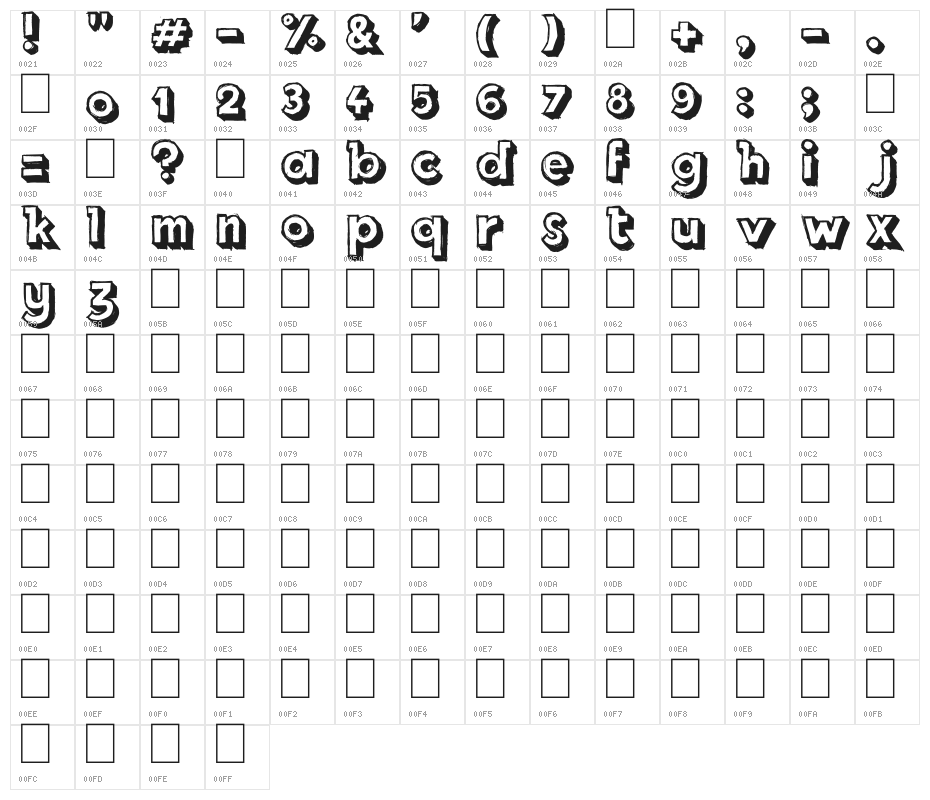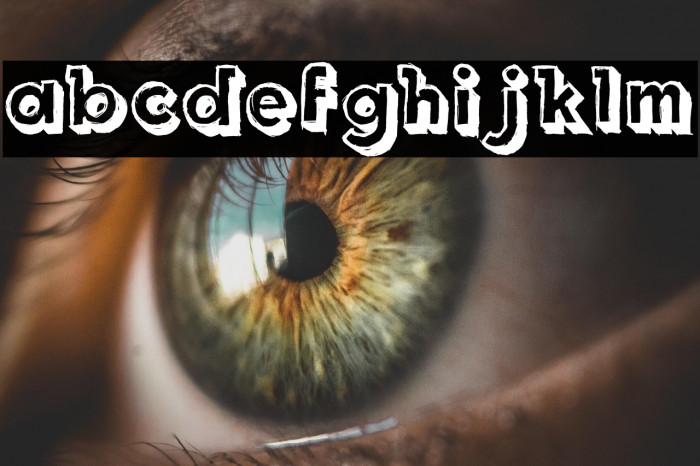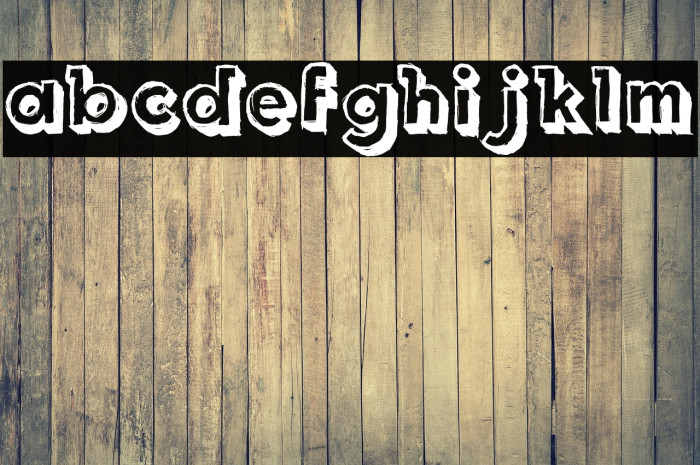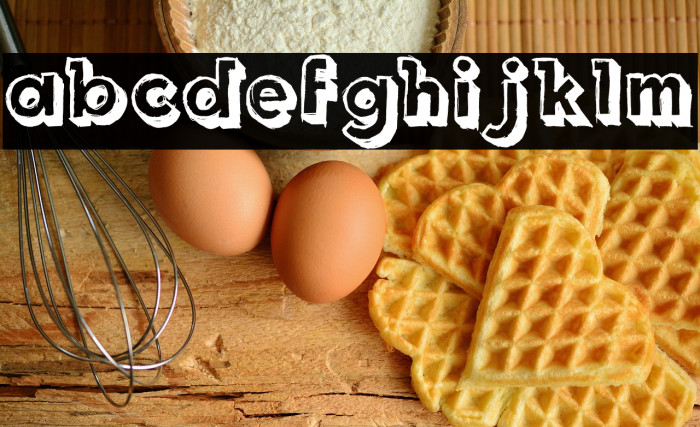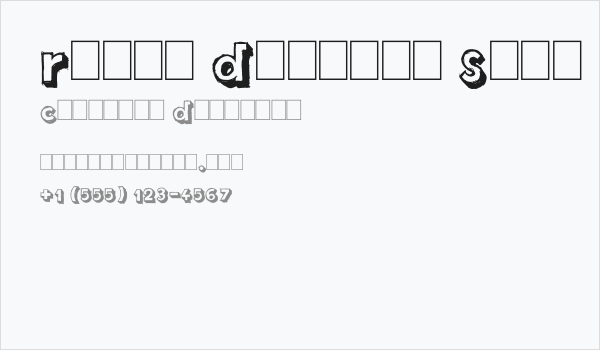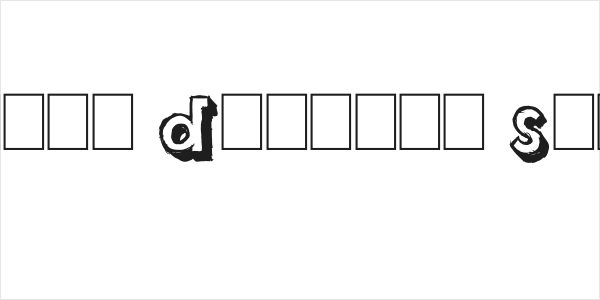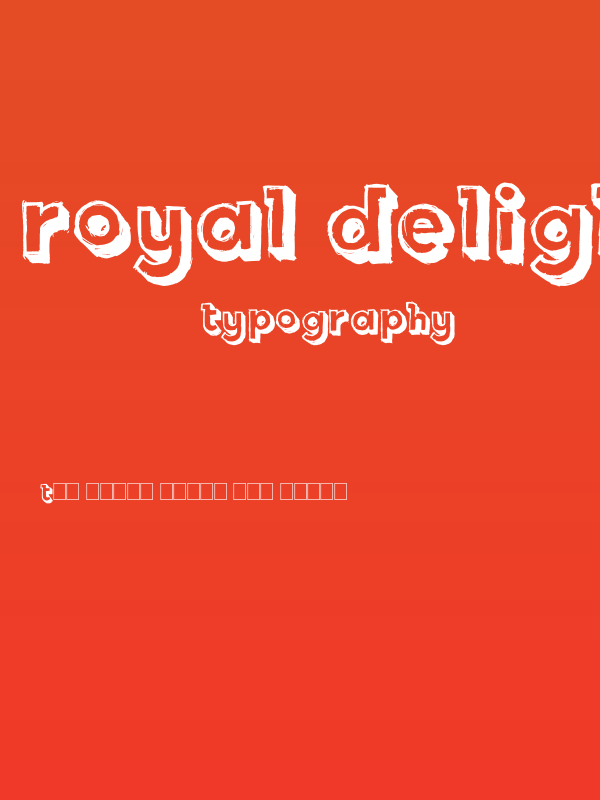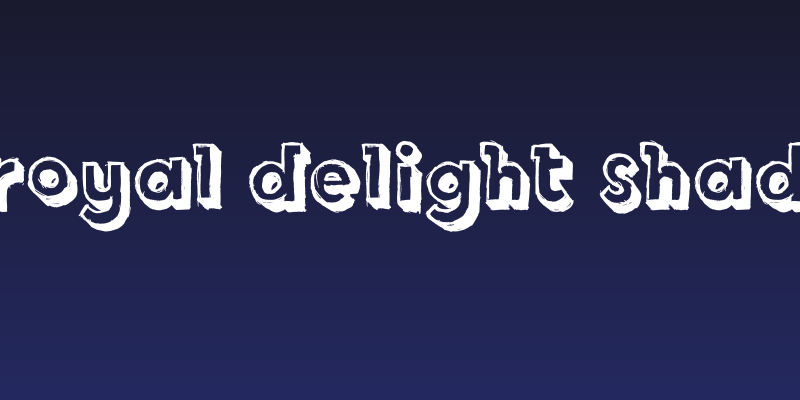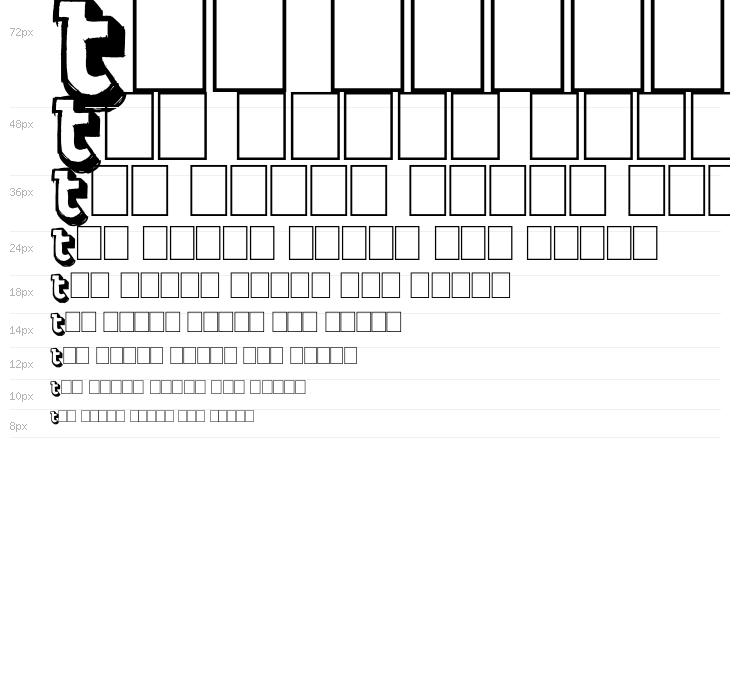
Royal Delight Shad Font
Royal Delight Shad Description
This font features a bold and playful style with a three-dimensional shadow effect that gives it a striking appearance. The letters are rounded and thick, creating a sense of fun and energy. The shadow effect adds depth, making the characters pop off the page. This font is perfect for grabbing attention and adding a dynamic element to any design. The numerals and special characters maintain the same bold and shadowed style, ensuring consistency across all text elements.
| Overall Style | Playful, Dynamic |
| Use Case | Headlines, Posters, Invitations |
| Proposed Projects | Ideal for children's book covers, playful posters, event invitations, and eye-catching headlines. |